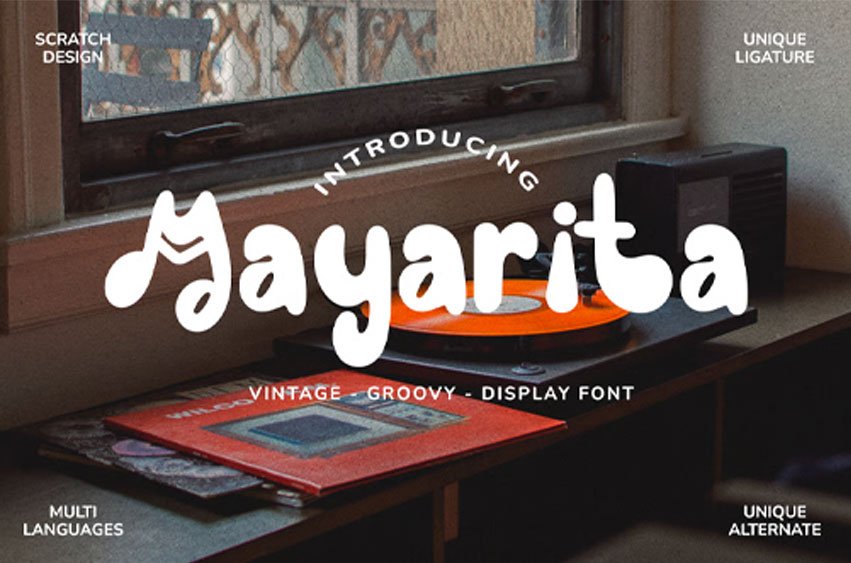
Mayarita Font is psychedelic, bold, playful, and really unity together in your design to give it that retro feel. This font has an authentic groovy style that is perfect for making any project like a header, logo, quote, layout magazine, poster, packaging and label design, etc.
Better which is use it on the 60s until 80s design project, this font will give some old-school touch to your design projects.